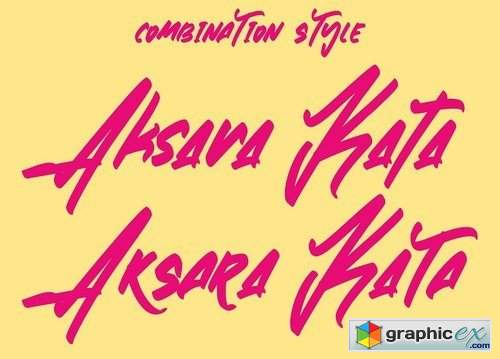
Zlatoust Chaos Graffiti Font
Zlatoust Chaos is a free style font that has the characteristics of street art that shows freedom and is filled with unique characters